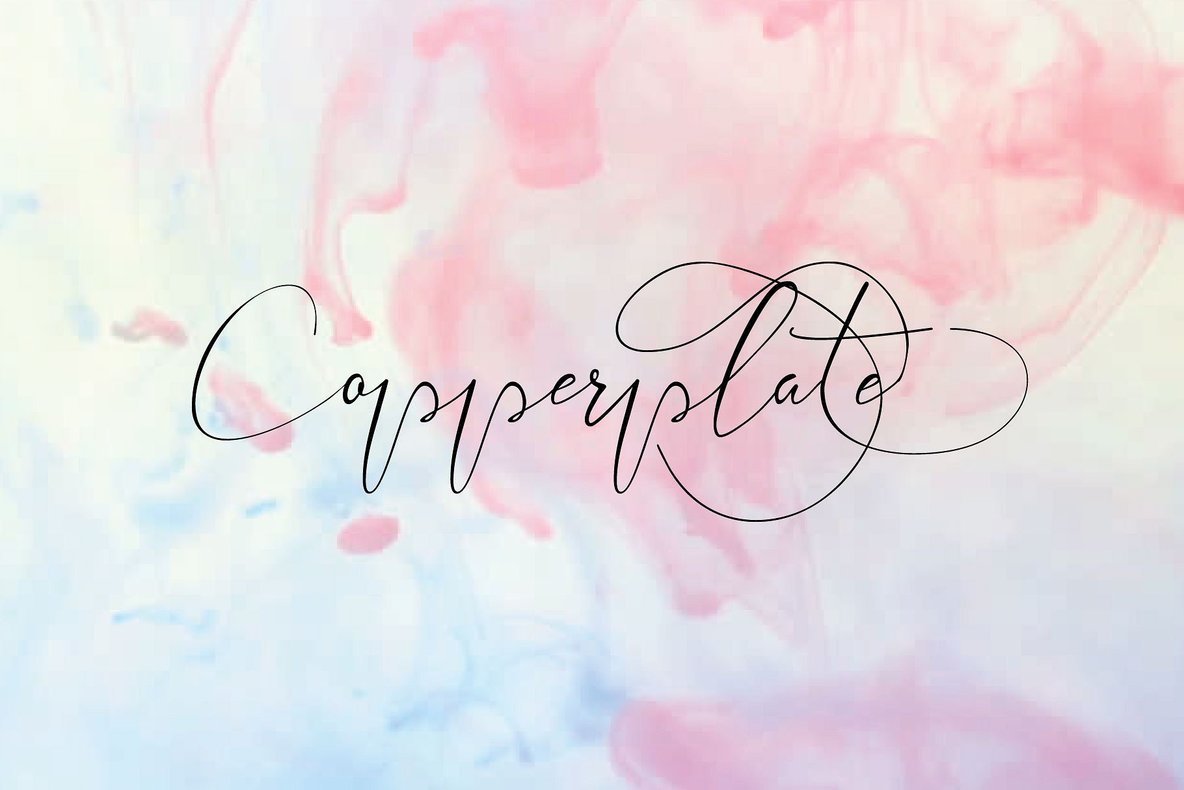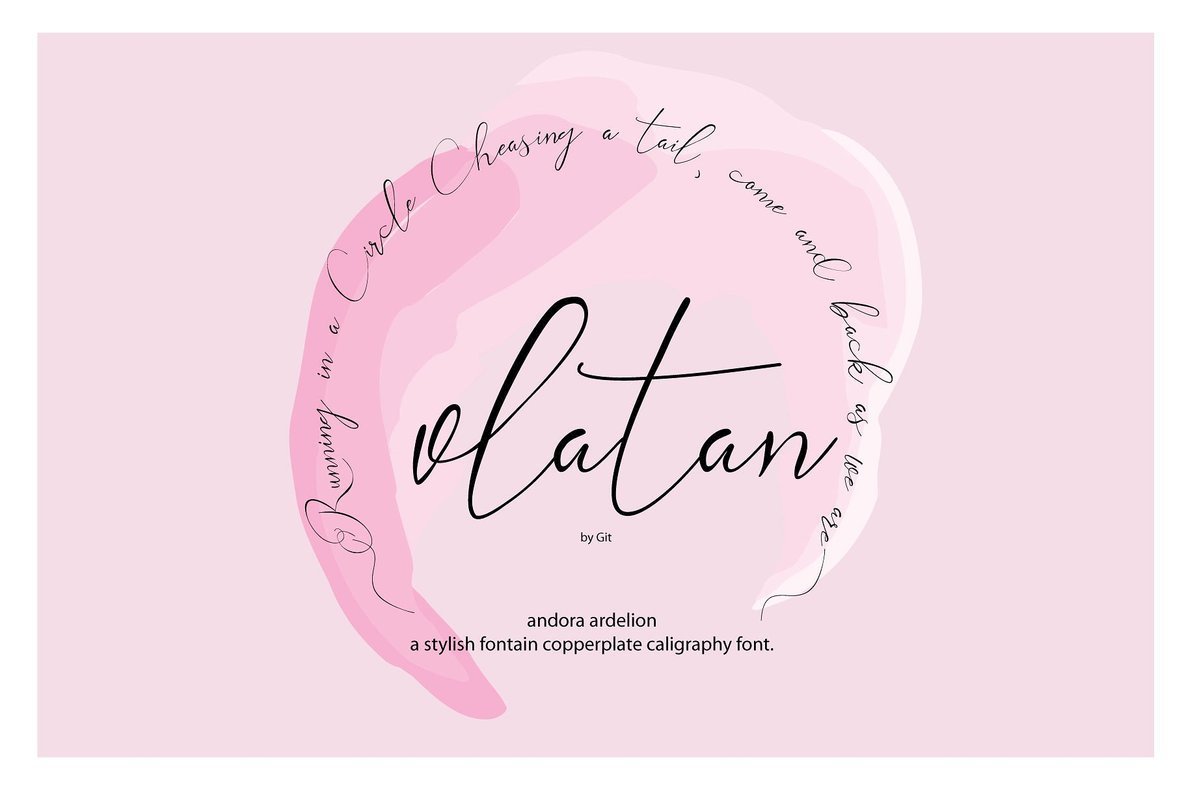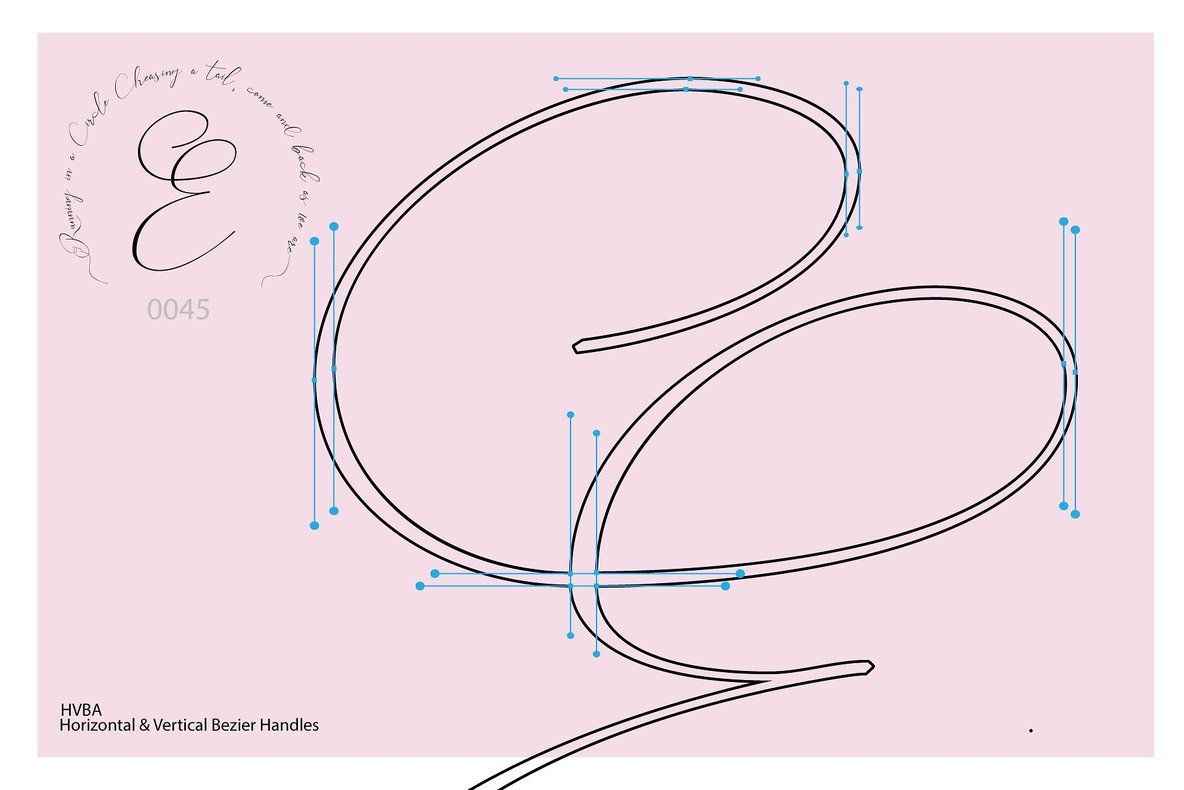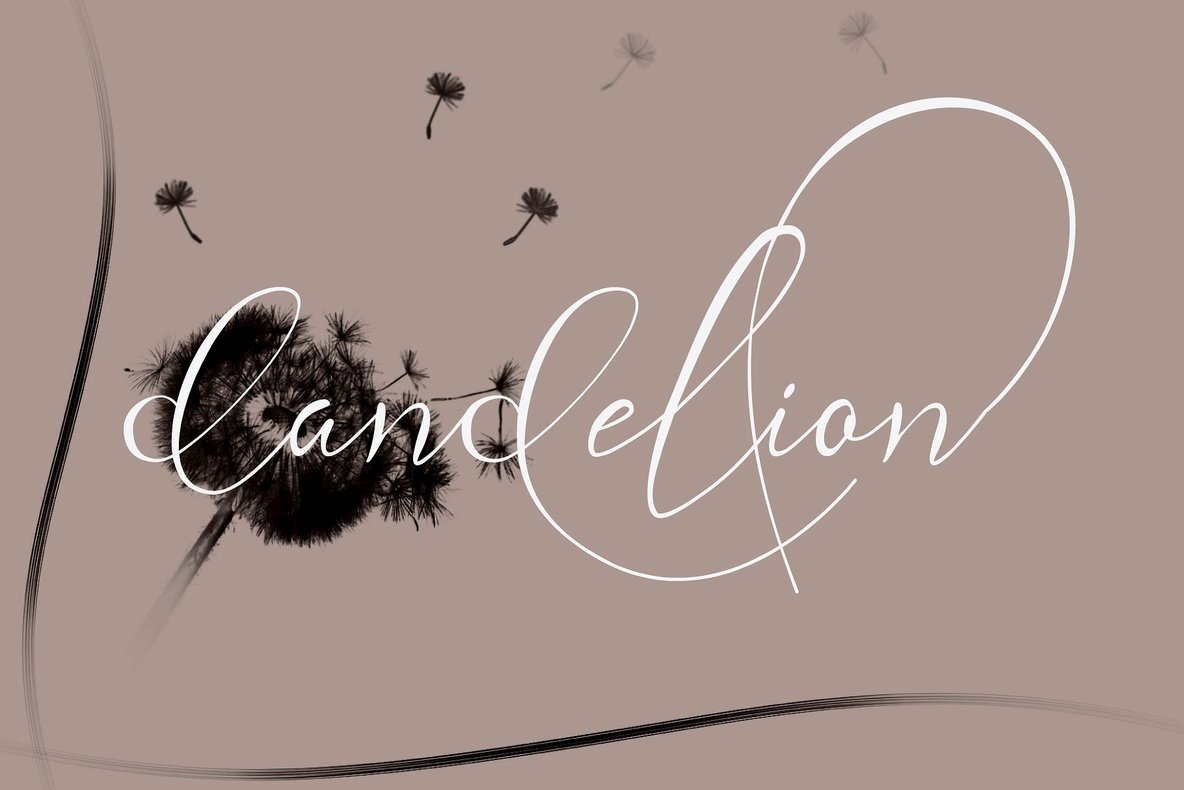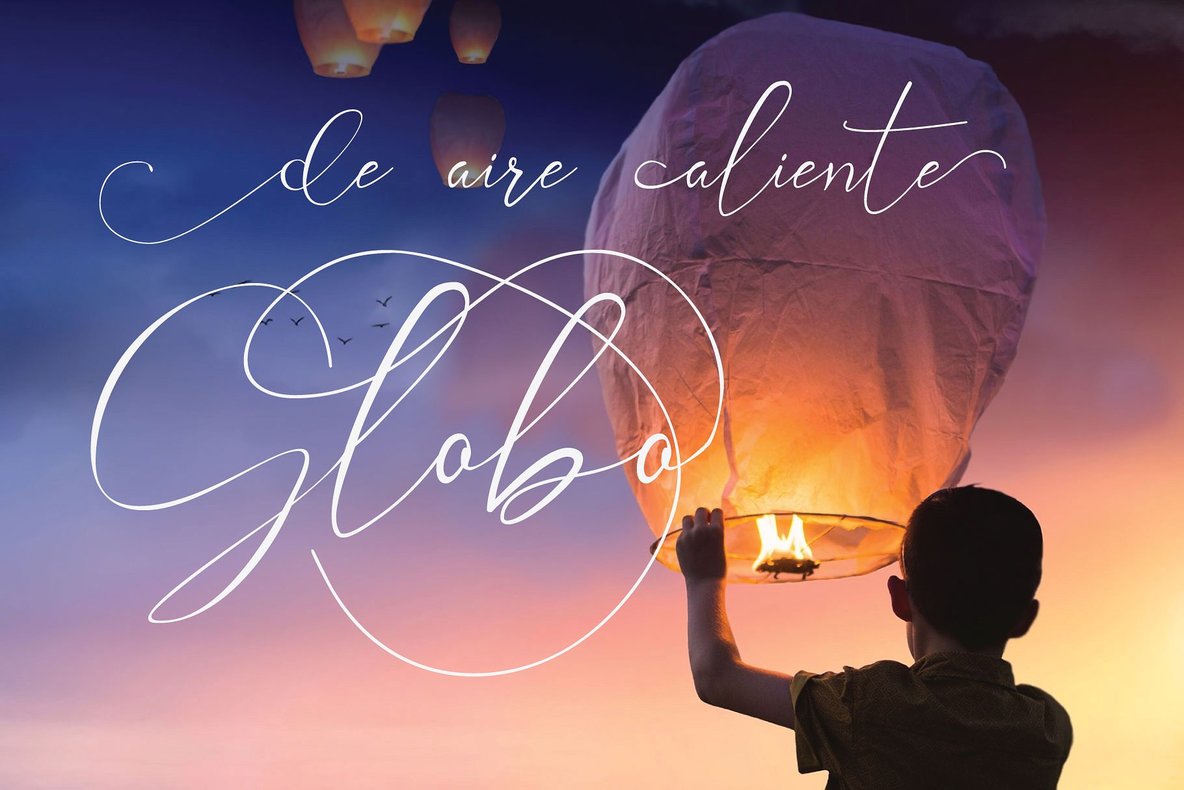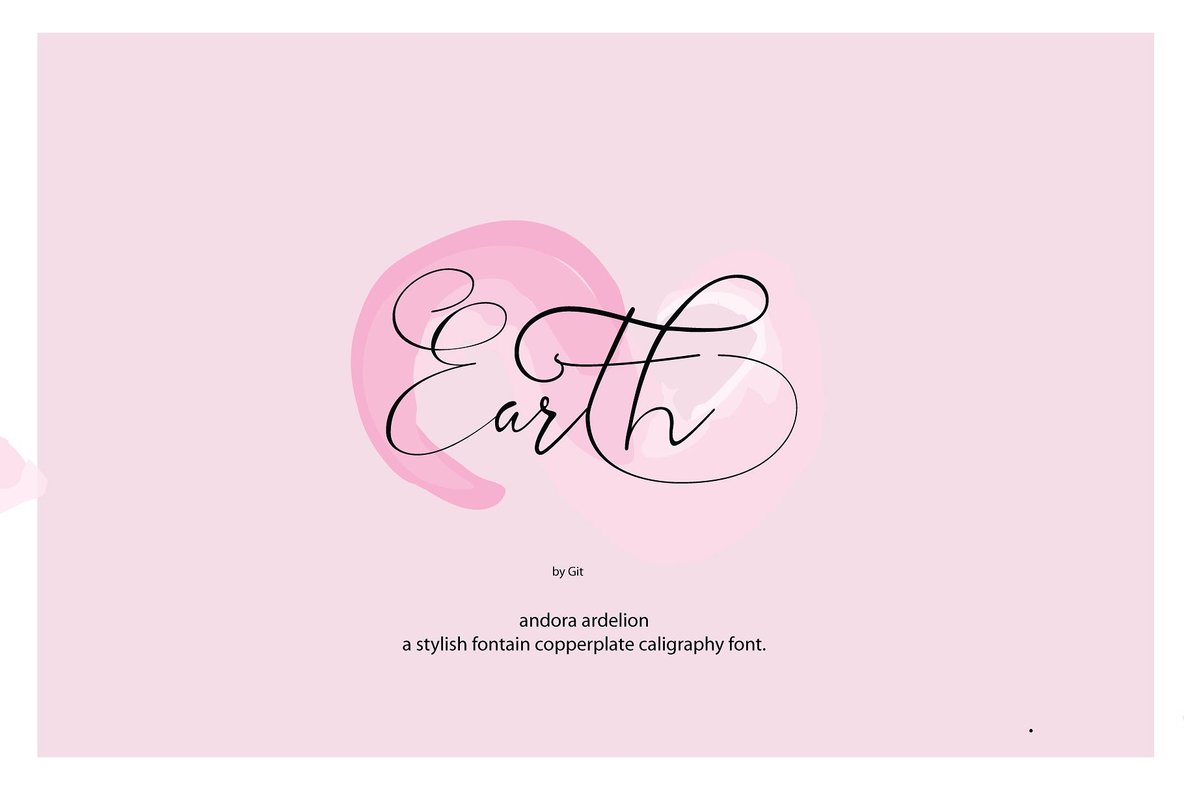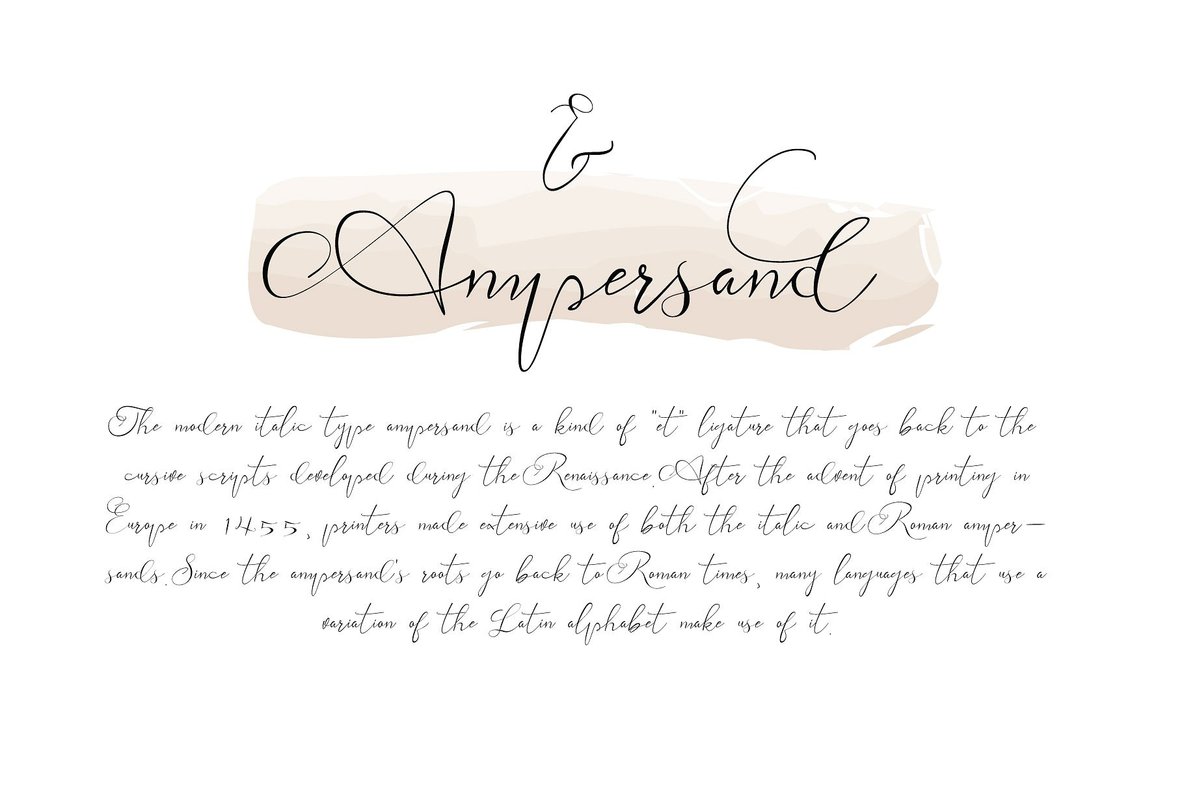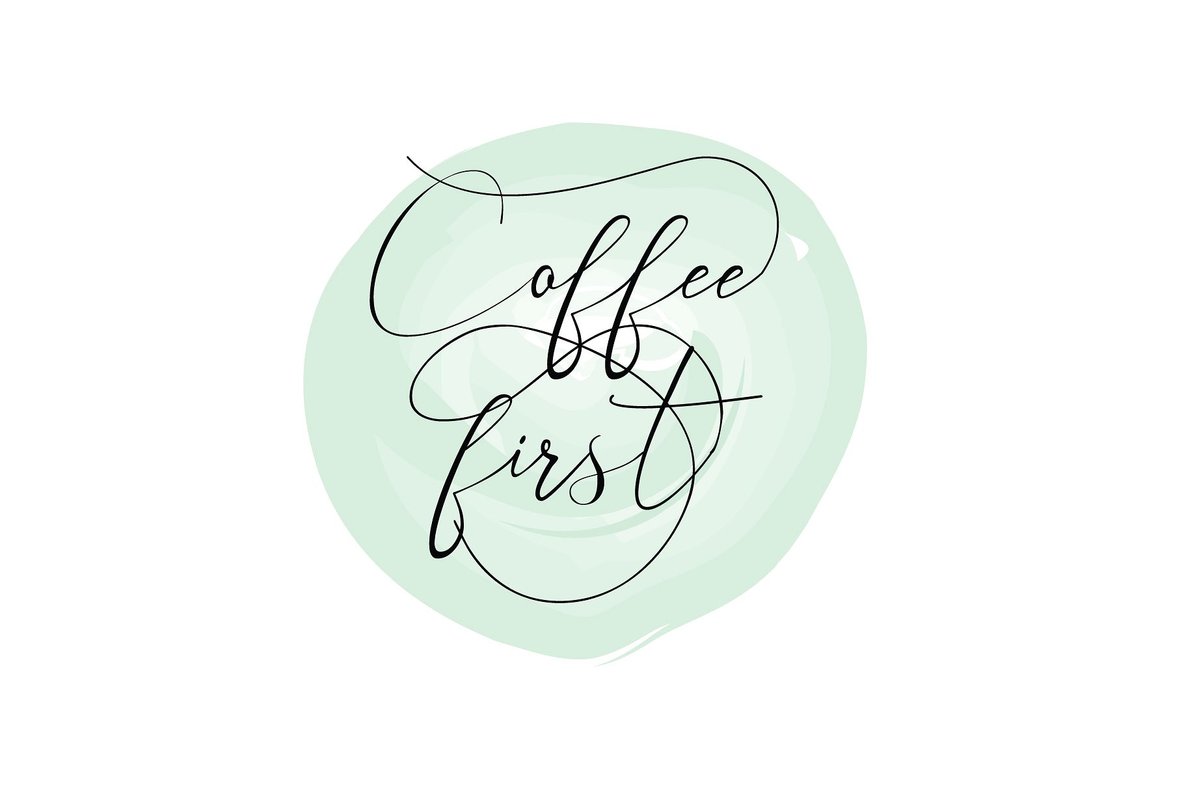
andora ardelion
Introducing Andora Ardelion, a stylish and refined fountain copperplate calligraphy font designed to imbue your projects with an air of sophistication. This font caters to those seeking a harmonious blend of contemporary design and timeless elegance, making it an exceptional choice for a variety of creative needs.Andora Ardelion: Elegant Fountain Copperplate Calligraphy
Ideal for anyone looking to add a fountain copperplate touch to their work, Andora Ardelion effortlessly enhances any design with both elegance and innovation.